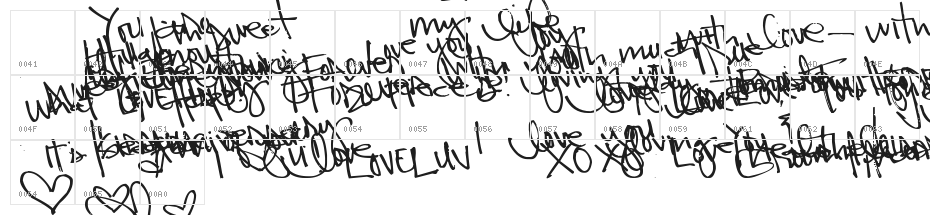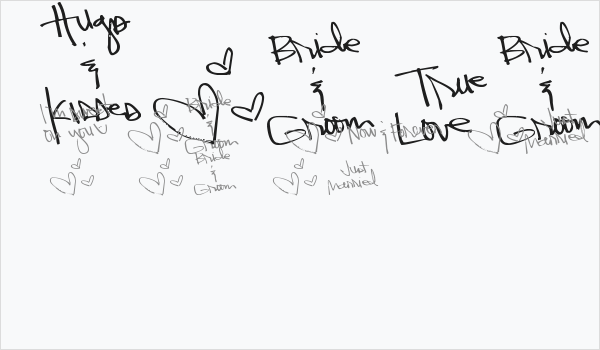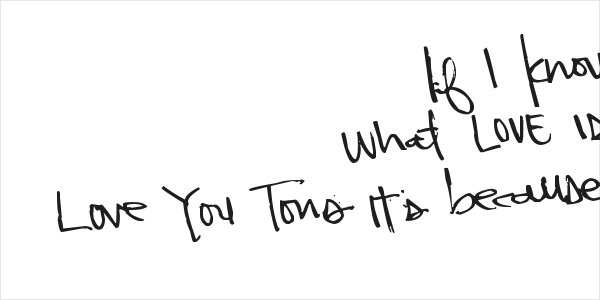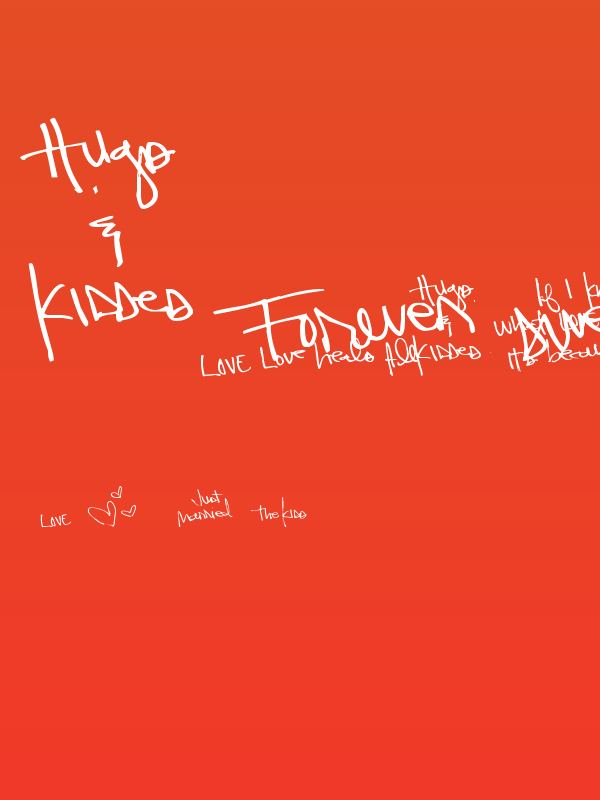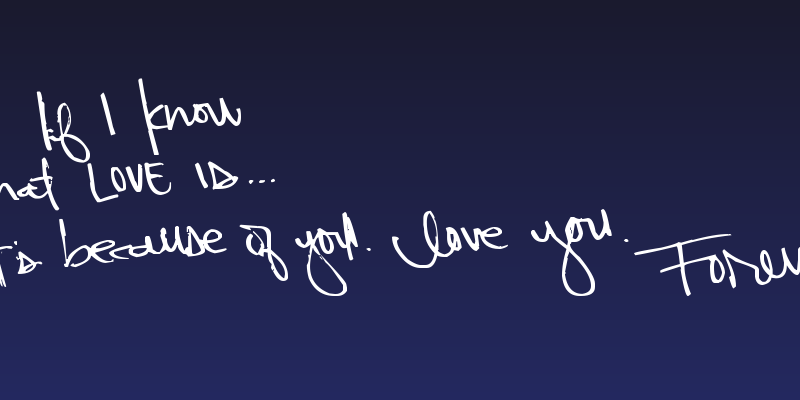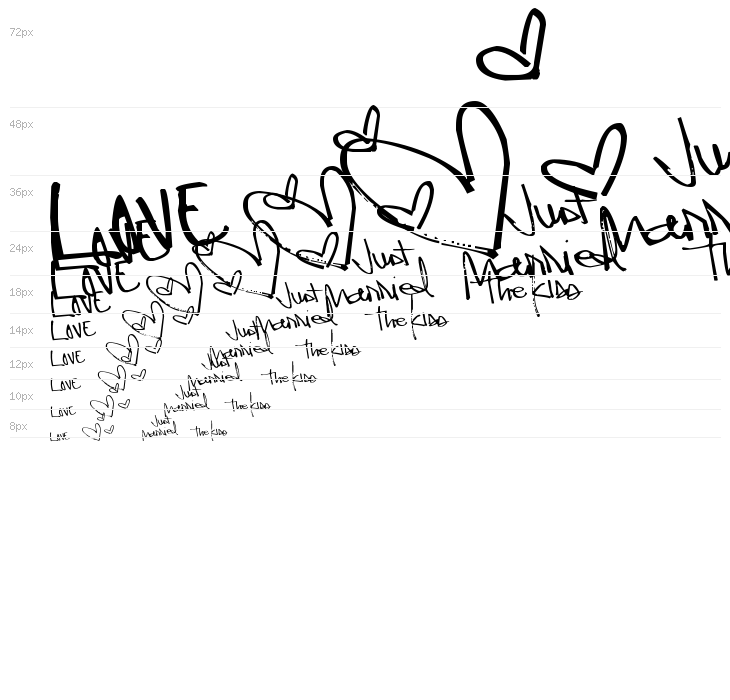
Pea Kadee's LOVE Sentiments Font
Pea Kadee's LOVE Sentiments Description
This playful and whimsical font features a handwritten style with a casual, personal touch. The letters are uneven and vary in size, giving it an authentic, hand-drawn appearance. The strokes are fluid and dynamic, with some letters connecting in a cursive manner while others stand alone. The font includes charming embellishments like hearts, adding to its romantic and affectionate feel. It captures a sense of spontaneity and warmth, making it ideal for conveying emotions and personal messages.
| Use Case | Greeting cards, Personal notes, Invitations |
| Proposed Projects | Perfect for wedding invitations, greeting cards, personal notes, and romantic projects. |